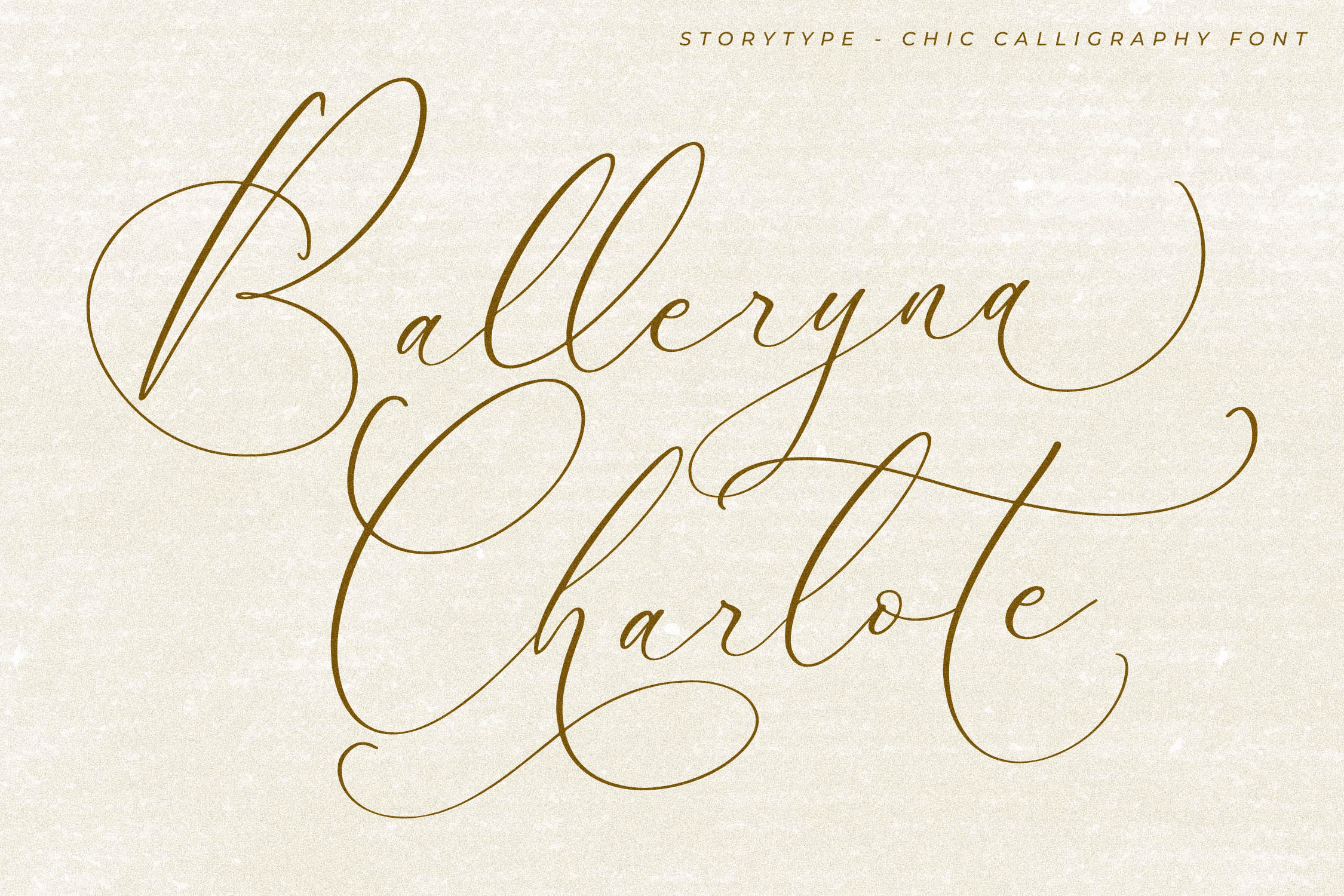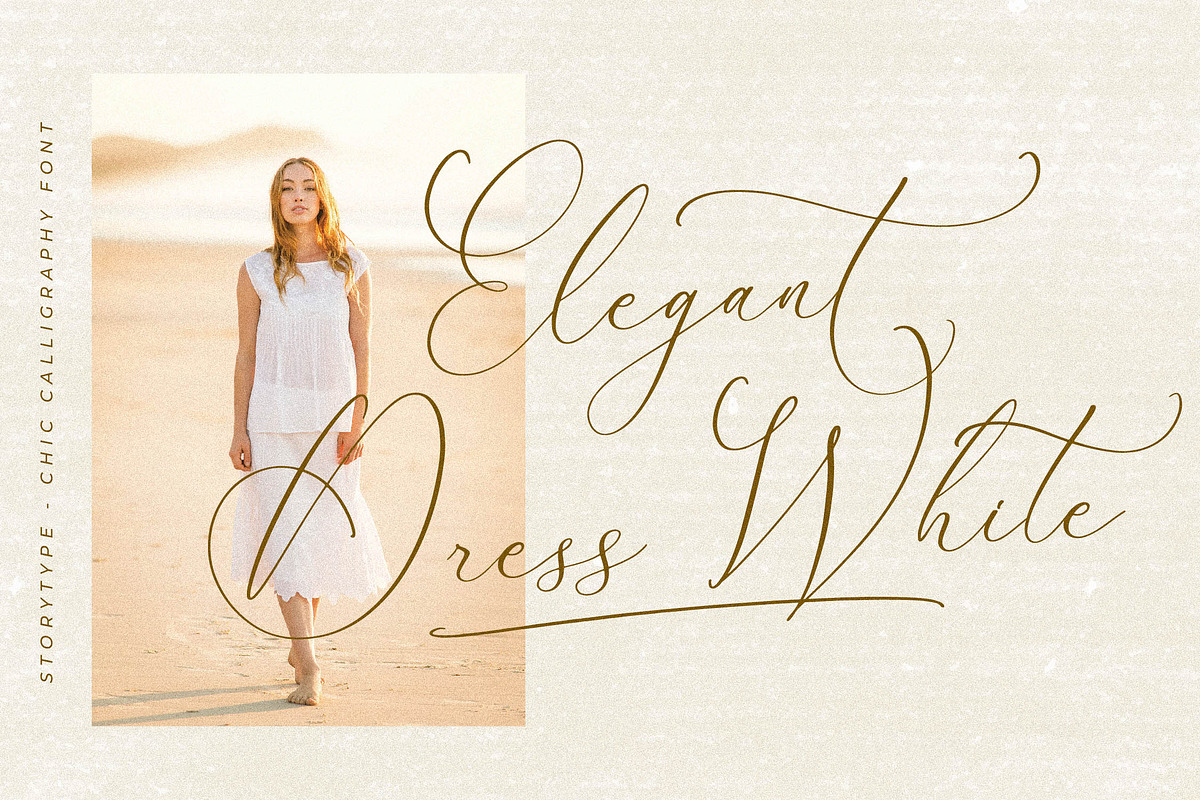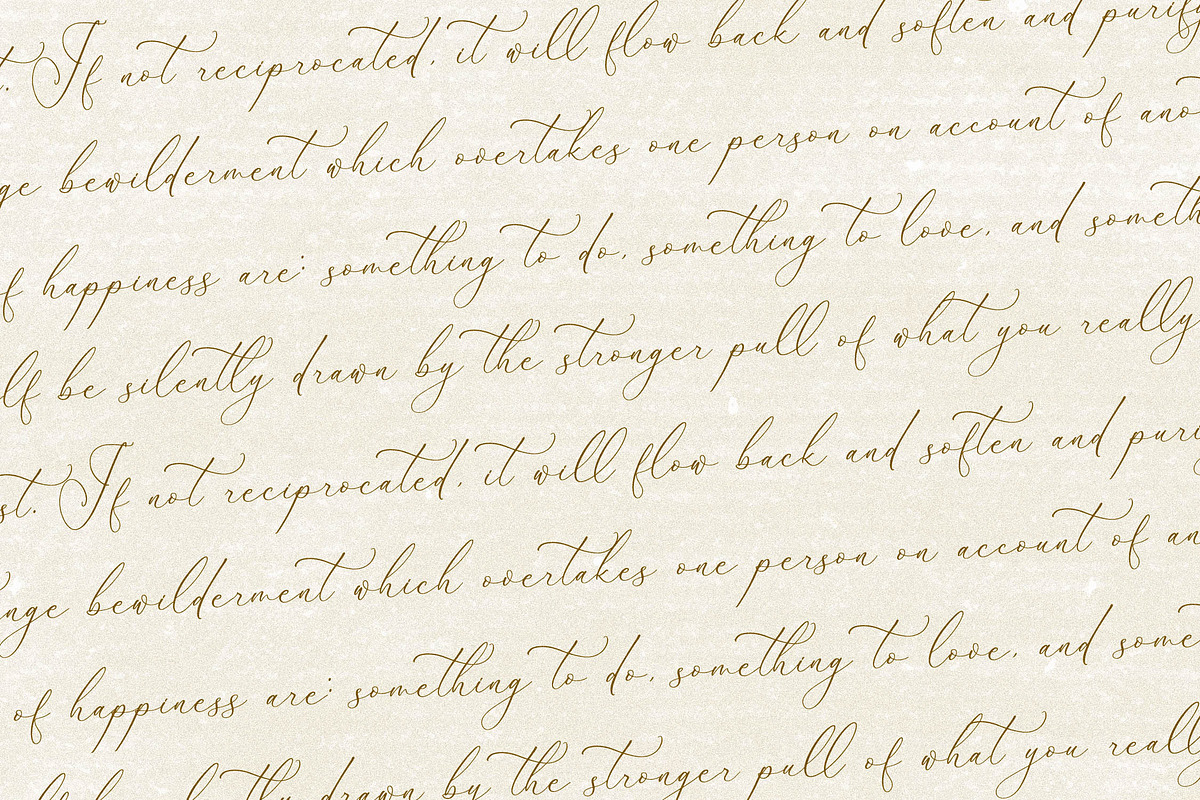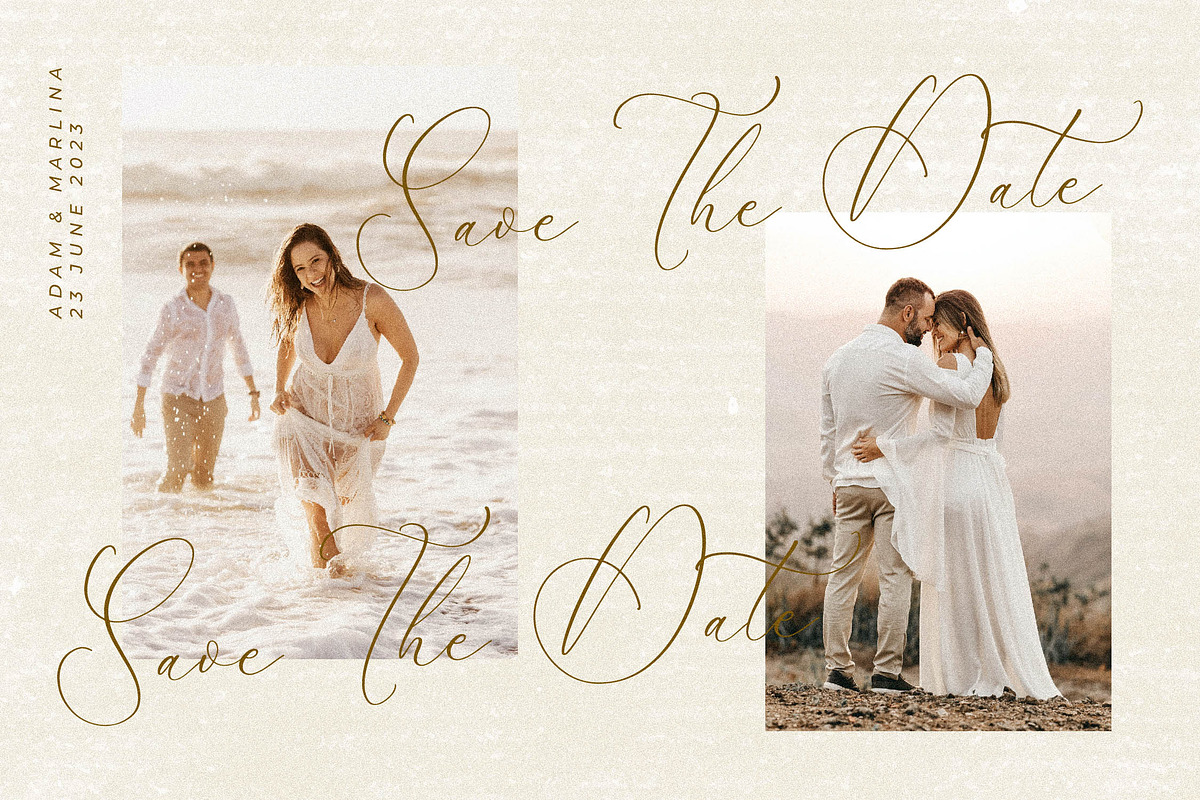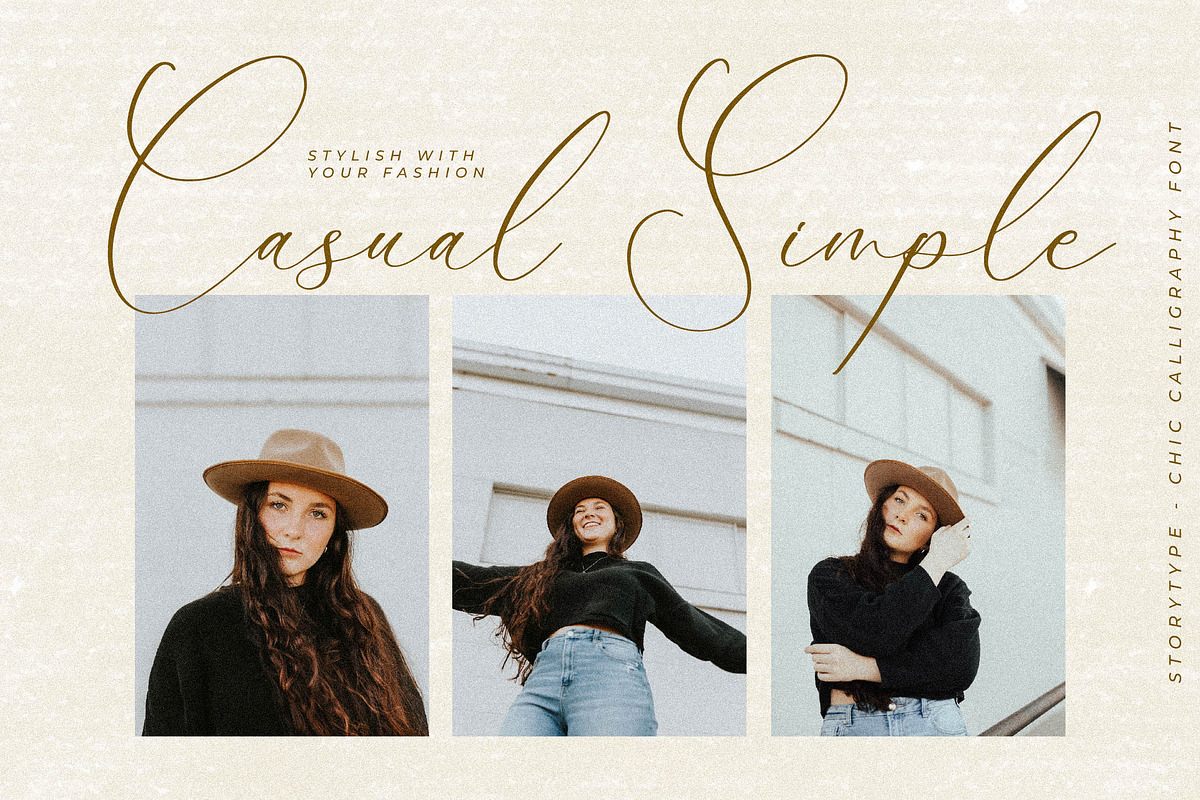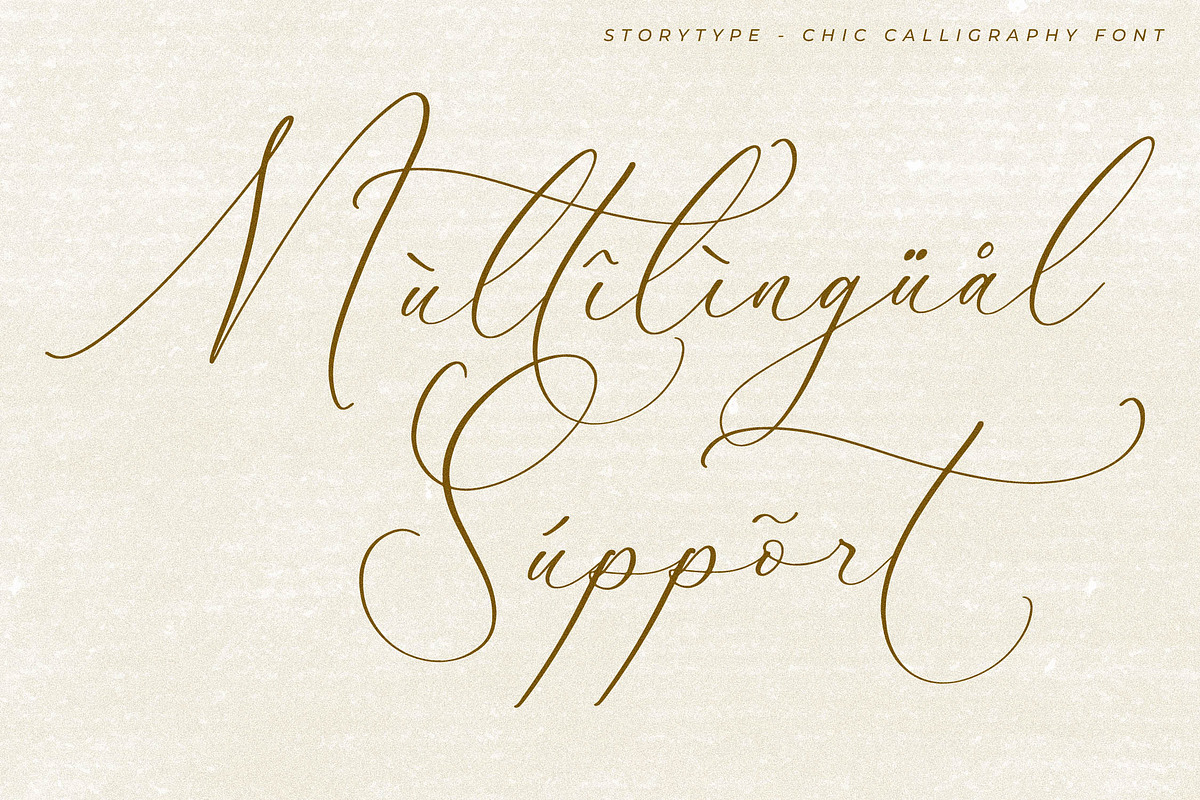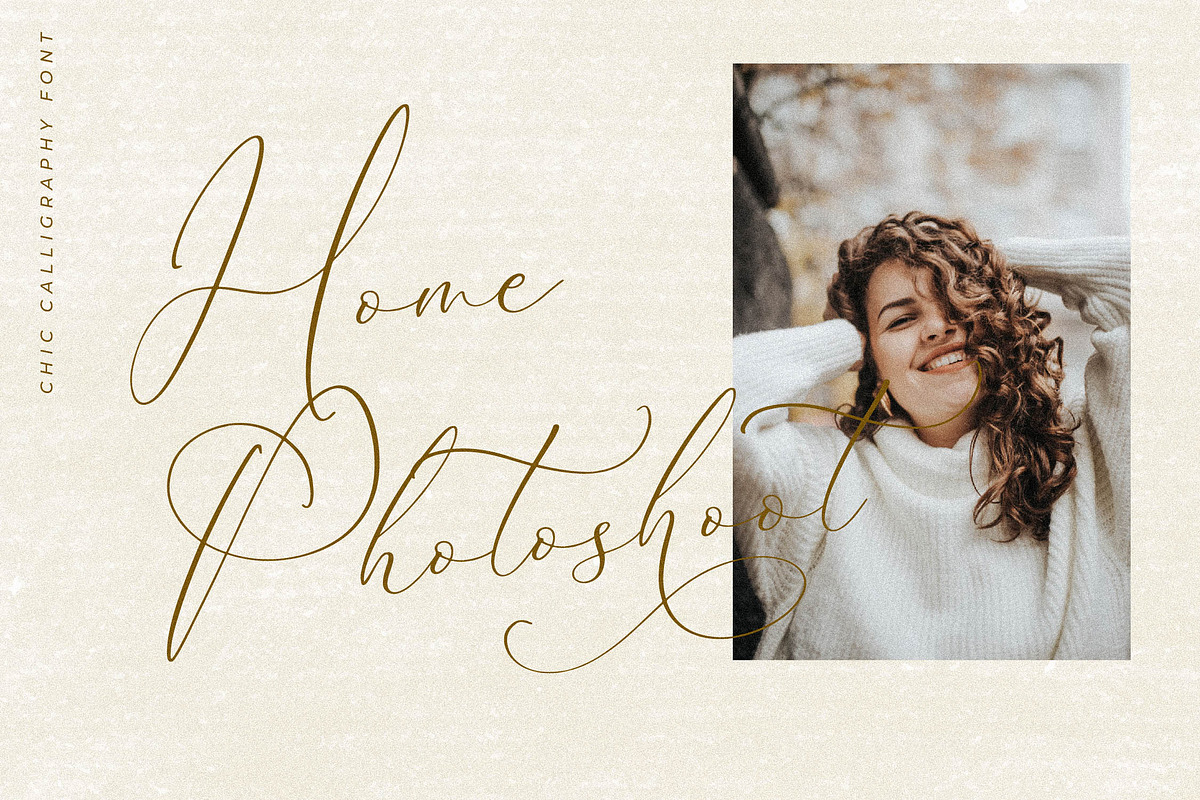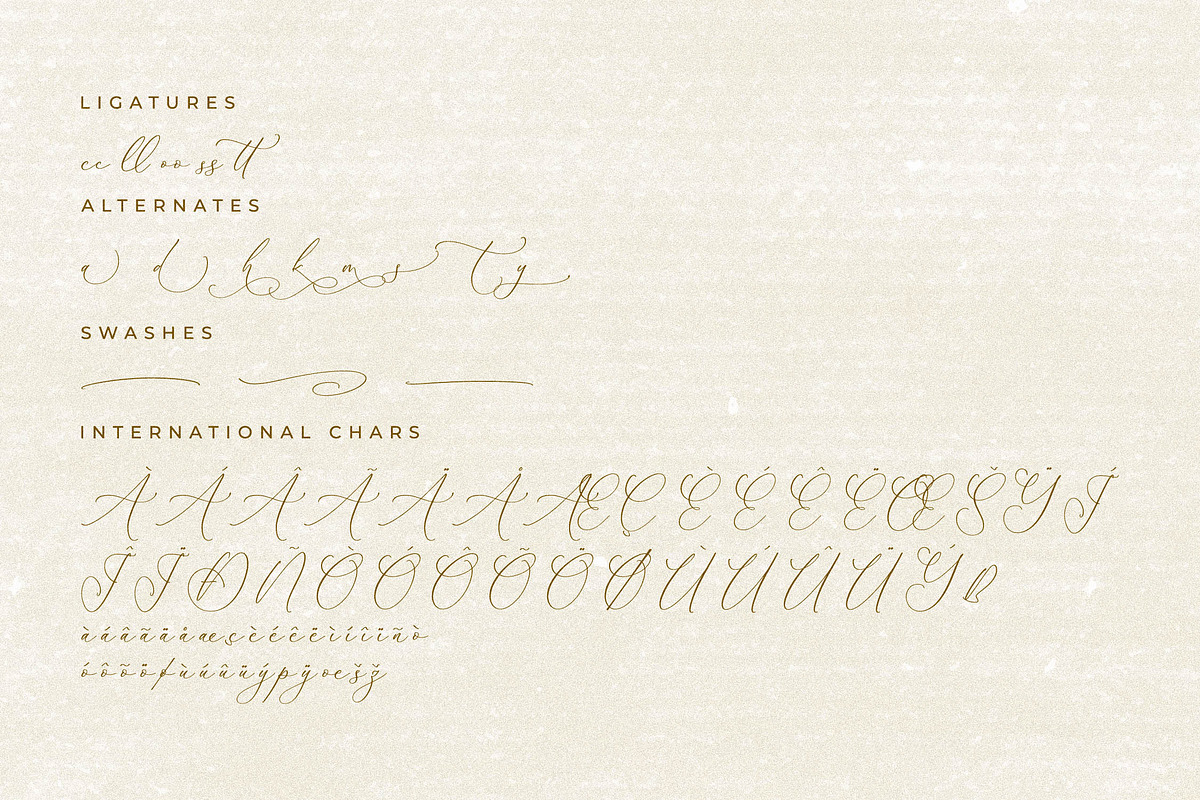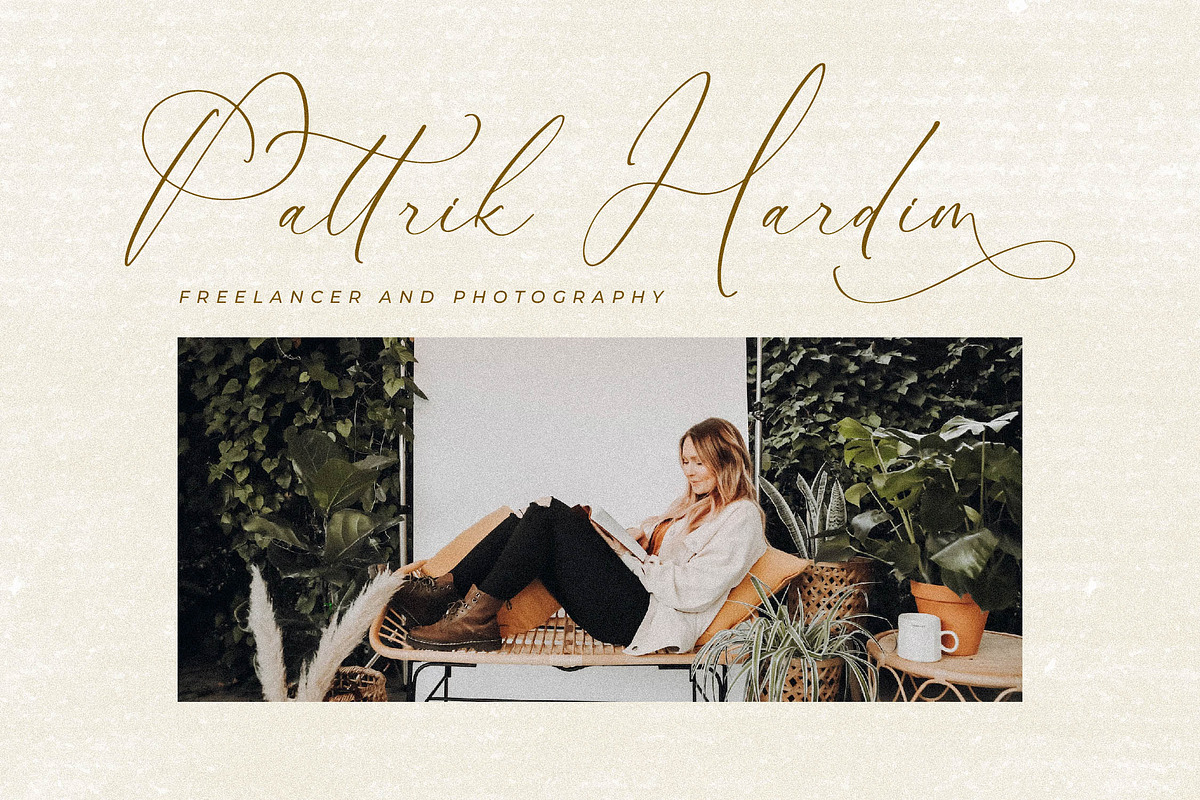
Balleryna Charlote Calligraphy Font
Proudly present Balleryna Charlote - Chic Calligraphy Font , created by Storytype, A luxury script that has own unique style & modern look. This typeface is perfect for an elegant & luxury logo, book or movie title design, fashion brand, magazine, clothes, lettering, quotes, and so much more.